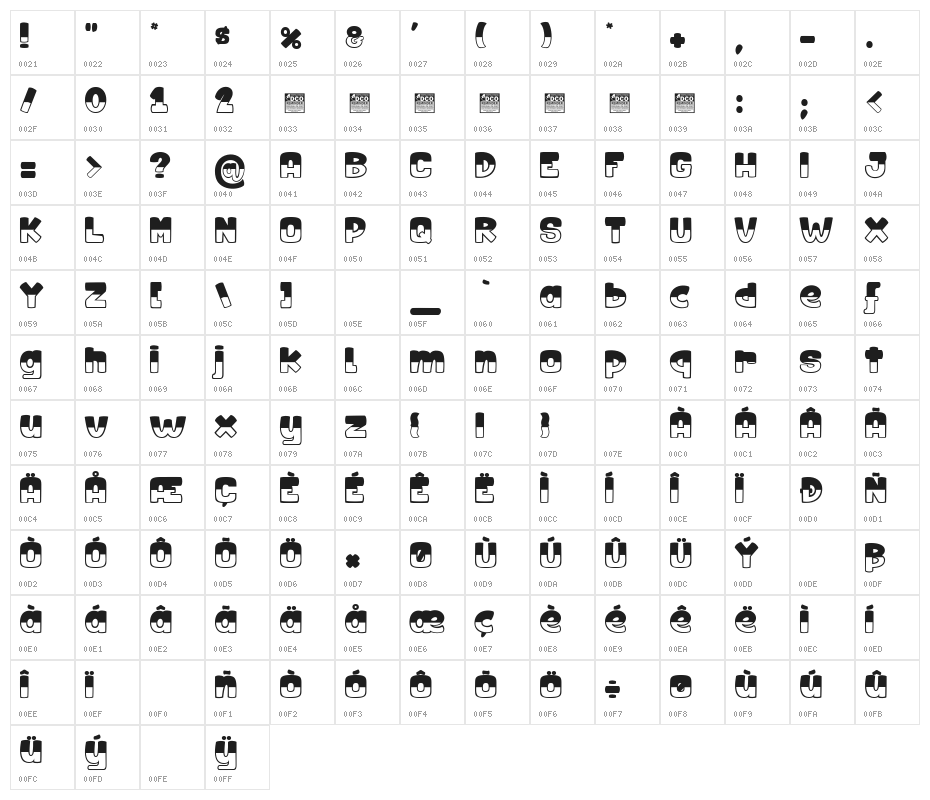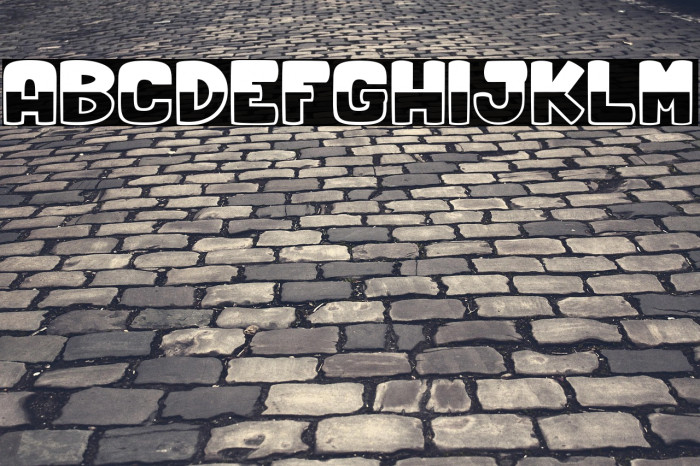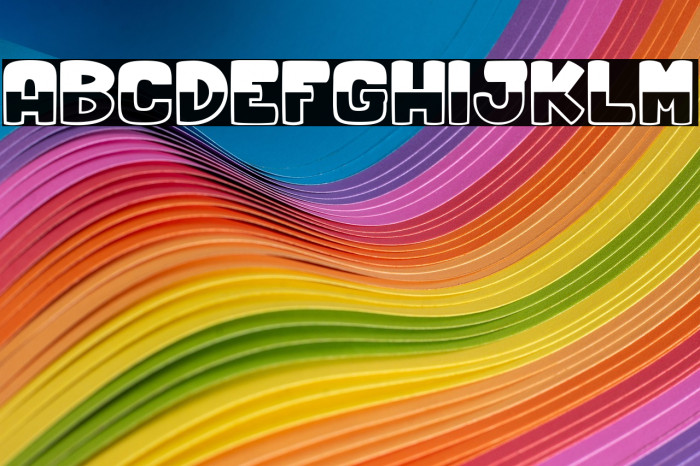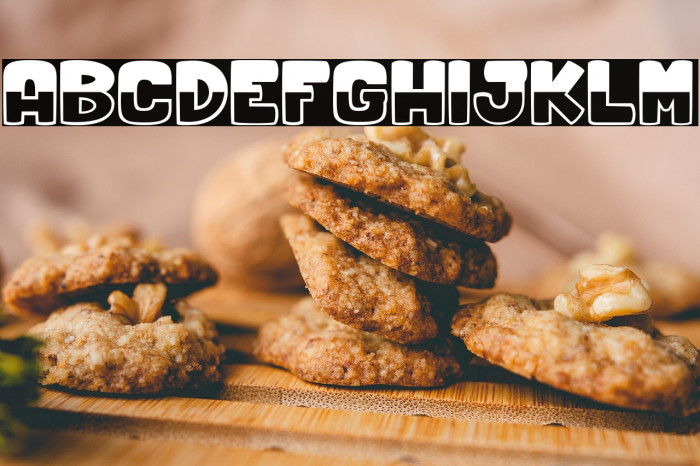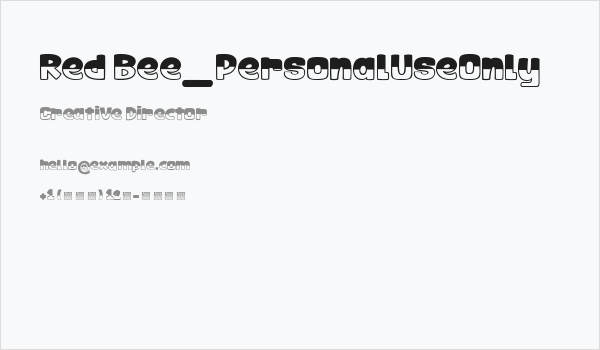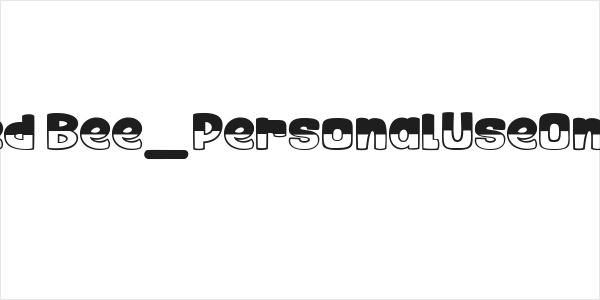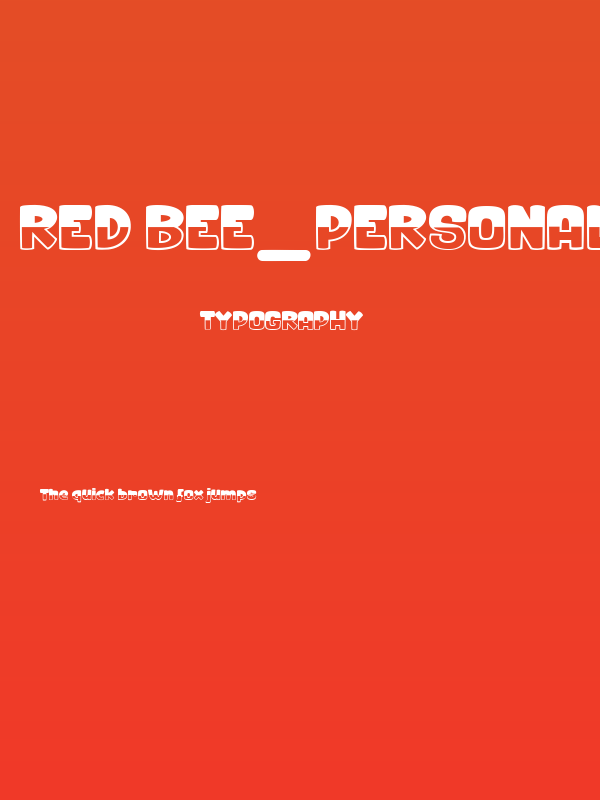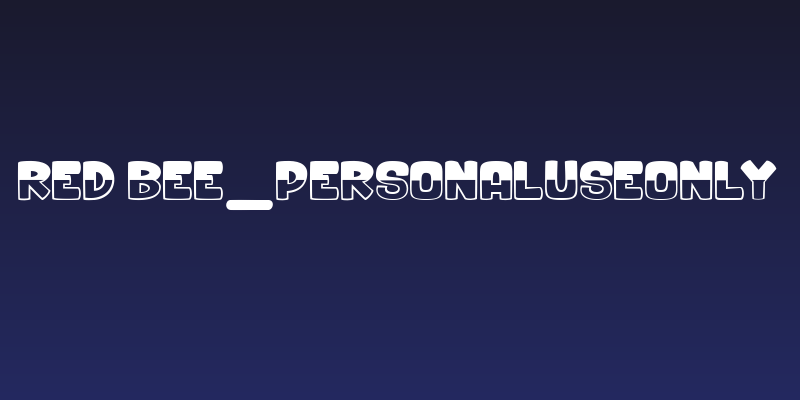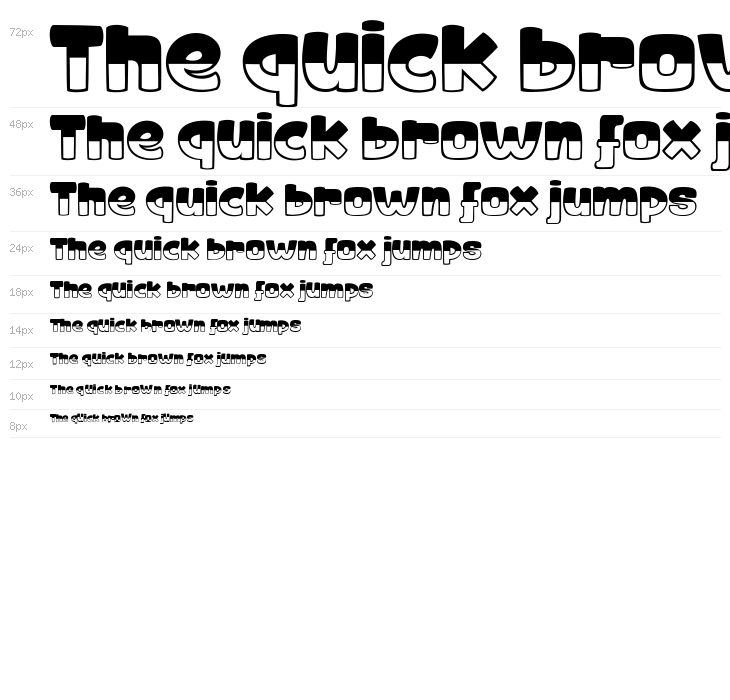
Red Bee_PersonalUseOnly Font
Red Bee_PersonalUseOnly Description
This font features a bold, playful design with a distinct outline that gives each character a three-dimensional appearance. The letters are rounded and chunky, creating a friendly and approachable feel. The uppercase and lowercase letters maintain a consistent style, with the lowercase being slightly more compact. Numbers and special characters follow the same design principles, ensuring uniformity across all glyphs. The font's unique style makes it stand out, ideal for projects that require a fun and engaging look.
| Overall Style | Playful, Modern |
| Proposed Projects | Ideal for children's books, playful branding, posters, and creative advertising campaigns. |